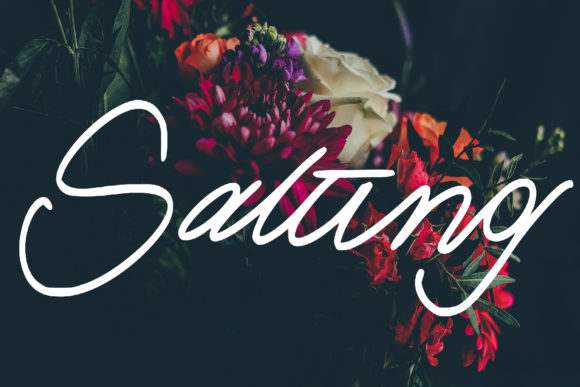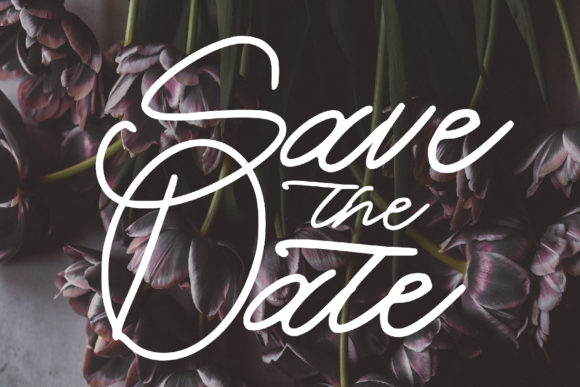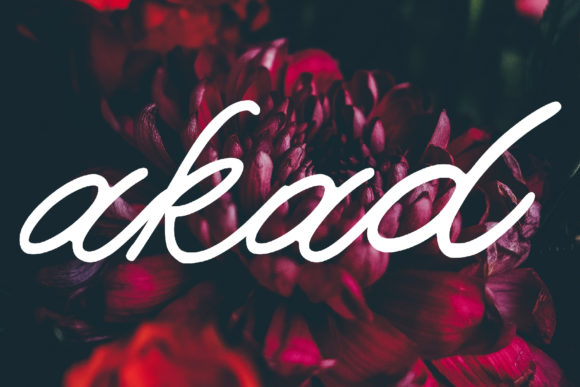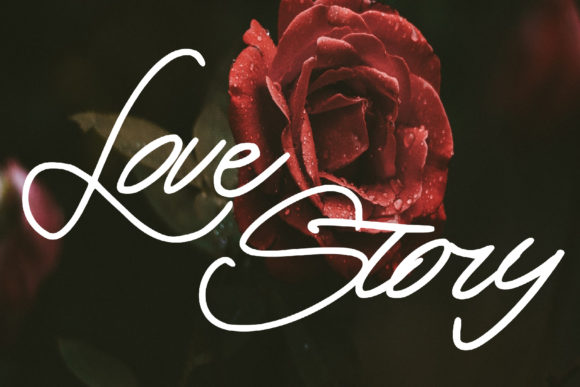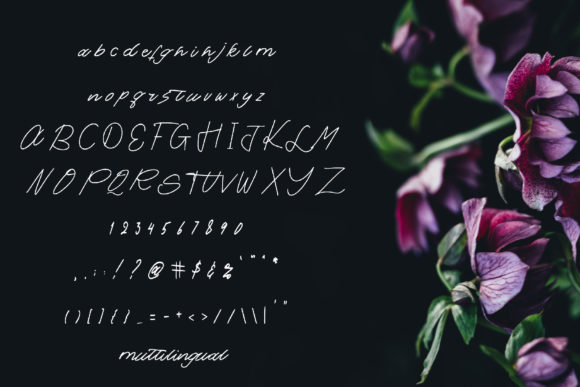
Salting Font
About Salting Font
Salting: Embrace the Exquisite Fusion of Classy Calligraphy and Contemporary Freshness
Introducing Salting, an exquisite handwritten font masterfully designed to capture hearts as a true favorite. With a perfect blend of classy calligraphic influences and contemporary freshness, this font becomes a delightful choice for elevating your projects to new heights. Prepare to be enchanted by its unique charm, and let it infuse your creations with a touch of sophistication and modernity that will leave a lasting impression.
The allure of Salting lies in its impeccable fusion of classic calligraphy and fresh modern elements. Each letter exudes elegance, maintaining a sense of refined beauty while embracing a contemporary twist that sets it apart from the rest.
Designing with Salting is a creative pleasure. Whether you’re crafting luxurious wedding invitations, designing stylish branding materials, or creating captivating artwork, this font elevates your work to a level of artistic finesse.
Expressing sentiments becomes an art form with Salting. Its flowing strokes and graceful curves add an air of romance and allure, making your words come alive with emotion and elegance.
Gorgeous designs come to life with Salting’s versatility. Whether you’re creating sophisticated logos, crafting eye-catching social media graphics, or designing elegant packaging, this font adds a touch of sophistication that draws admiration.
For businesses seeking a brand identity that stands out, Salting is the answer. Its classy yet contemporary appearance communicates a sense of elegance and innovation, making it an excellent choice for brands looking to make a memorable impact.
And when it comes to unleashing your creativity, Salting won’t disappoint. Its versatile nature allows it to complement a wide array of design concepts, from timeless and luxurious to fresh and modern.
In conclusion, Salting is more than just a font; it’s an exquisite masterpiece that blends the best of both worlds. Embrace its unique charm, and let it become the driving force behind your most cherished projects. Whether you’re celebrating special moments, expressing creativity, or building a captivating brand presence, Salting will be your trusted ally, adding a touch of sophistication and modern flair. Allow this font to unlock the full potential of your creativity and watch as your designs flourish with the exquisite fusion of Salting. Fall in love with its timeless beauty, and let it lead you to create remarkable designs that stand at the pinnacle of creativity.